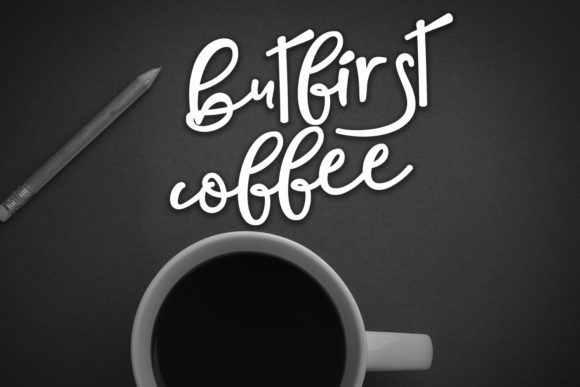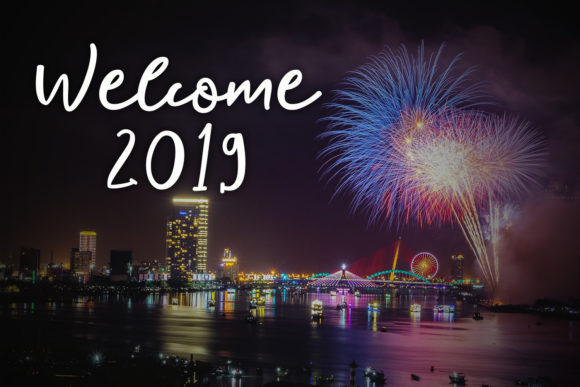
Nightlife Font
About Nightlife Font
The Nightlife is a fresh & modern script with a handmade calligraphy style. It’s decorative characters have a happy feel, which is perfect for adding a fun touch to your designs.